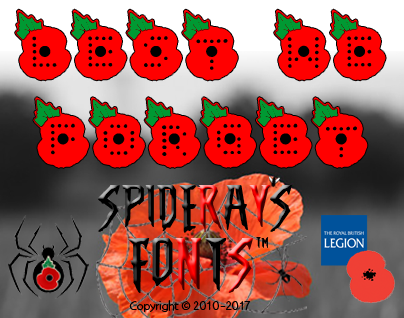
This is a revamp of one of my oldest typefaces from 2009 I decided that I would try to keep the poppy shape and use the dots as seeds to make the letters whilst trying to keep the center of the flower. This typeface was created on the 11/11/2016 to mark the hundred year anniversary of the Battle of the Somme. Please make a donation to the Royal British Legion @ http://bit.ly/RoyalBritishLegionDonation |